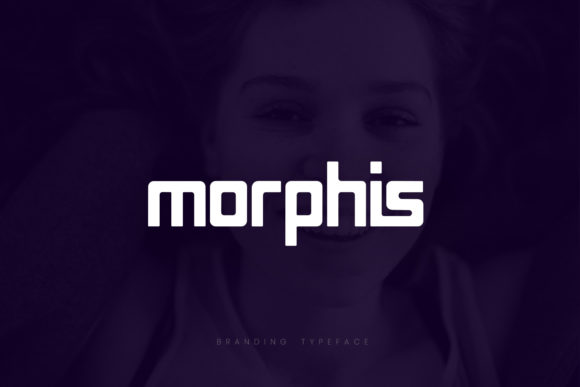
Behold Morphis Font, the epitome of boldness and elegancy, redefining the art of digital expression. With its sleek and contemporary design, Morphis leads the pack in display fonts, leaving a lasting impression on your audience.
Dive into a world of creative possibilities, where your designs dance with sophistication. Morphis' clean lines and minimalist aesthetics are the perfect canvas for your imagination. Whether it's a captivating web design or an unforgettable business card, Morphis adds a touch of class that's hard to resist.
Fearlessly embrace your individuality, let Morphis be your voice. This font is a masterpiece of versatility, adapting effortlessly to any project that demands attention. From eye-catching headlines to thought-provoking quotes, Morphis elevates your words, making them resonate with impact.
Join the ranks of design visionaries who've discovered the allure of Morphis. Let your creativity flourish as you witness the transformation of ordinary text into captivating masterpieces. The possibilities are endless, and Morphis is your guide to greatness.